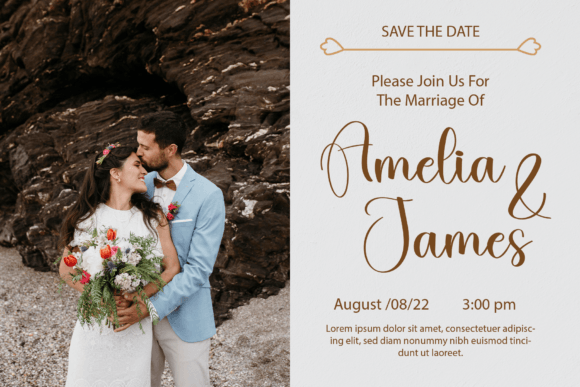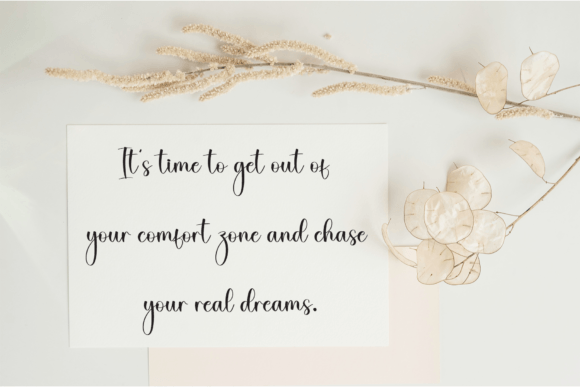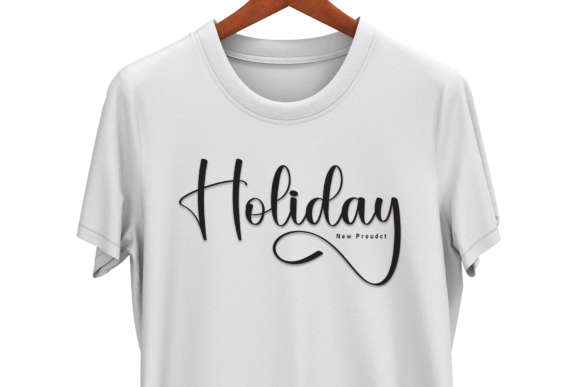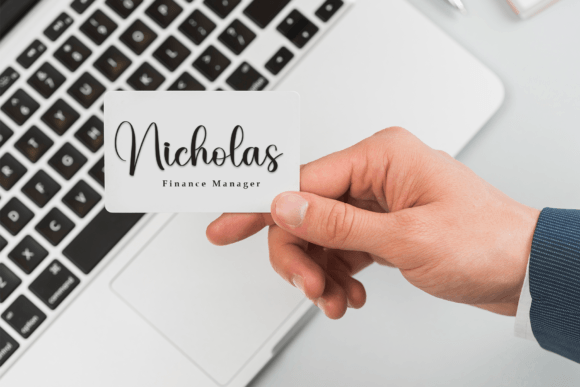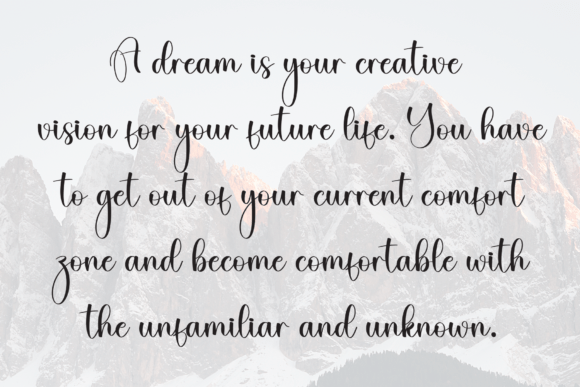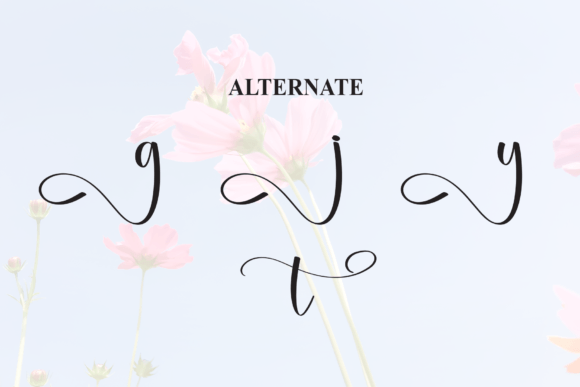
Introducing Beautyful Font: Elevate Your Designs with Elegance and Sophistication
Are you a designer or crafter looking for a font that exudes elegance and sophistication? Look no further than Beautyful Font, a stylish and incredibly elegant script font that is sure to take your designs to the next level. With its beautiful, flowing lines and refined aesthetic, Beautyful Font is the perfect choice for a wide range of design projects, from wedding invitations and thank you cards to quotes, greeting cards, logos, business cards, and more.
The Perfect Font for Wedding and Event Designs
Wedding invitations, save-the-date cards, and other event-related designs require a font that is both romantic and refined. Beautyful Font fits the bill perfectly, with its lush, cursive script and elegant flair. Whether you’re designing a formal wedding invitation or a more casual event announcement, Beautyful Font is sure to make a stunning impression. Its beautiful, flowing lines will add a touch of sophistication and glamour to any design, making it perfect for special occasions.
Add a Personal Touch to Your Designs
One of the best things about Beautyful Font is its ability to add a personal touch to your designs. With its handwritten aesthetic, Beautyful Font gives your designs a warm, inviting feel that is sure to resonate with your audience. Whether you’re designing a logo, business card, or social media graphic, Beautyful Font will help you create a design that feels approachable, friendly, and uniquely yours.
Key Features of Beautyful Font
- Elegant script font: Beautyful Font features a beautiful, cursive script that is both refined and elegant.
- Handwritten aesthetic: With its flowing lines and natural feel, Beautyful Font gives your designs a warm, inviting touch.
- Versatile: Beautyful Font is perfect for a wide range of design projects, from wedding invitations and event announcements to logos, business cards, and more.
Design Ideas with Beautyful Font
Beautyful Font is a versatile font that can be used in a wide range of design projects. Here are a few ideas to get you started:
- Wedding invitations: Use Beautyful Font to create stunning wedding invitations, save-the-date cards, and other event-related designs.
- Quotes and posters: Add a touch of elegance to your quotes and posters with Beautyful Font.
- Logos and branding: Use Beautyful Font to create a logo or brand identity that is both sophisticated and refined.
- Greeting cards: Create beautiful greeting cards for special occasions, such as birthdays, anniversaries, and holidays.
- Business cards: Use Beautyful Font to create business cards that are both elegant and professional.
Tips for Using Beautyful Font
Here are a few tips for using Beautyful Font in your designs:
- Pair with a simple font: Beautyful Font is a statement font, so pair it with a simple font to create visual interest.
- Use it sparingly: While Beautyful Font is beautiful, it can be overwhelming if used too much. Use it sparingly to create a sense of elegance and sophistication.
- Experiment with colors: Beautyful Font looks stunning in a variety of colors, so don’t be afraid to experiment and find the perfect hue for your design.
Beautyful Font is a stunning script font that is sure to elevate your designs to the next level. With its elegant, flowing lines and refined aesthetic, Beautyful Font is perfect for a wide range of design projects, from wedding invitations and event announcements to logos, business cards, and more. Whether you’re a designer or crafter, Beautyful Font is a great choice for anyone looking to add a touch of sophistication and glamour to their designs.